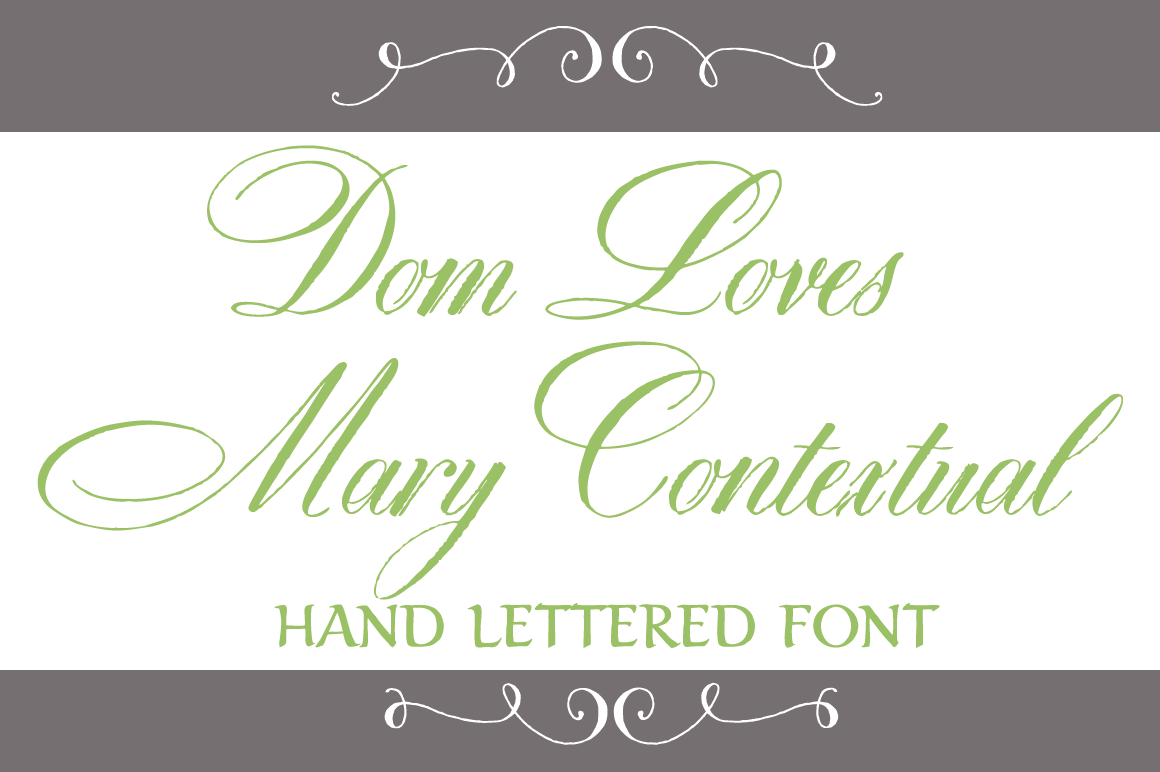
The Dom Loves Mary Contextual Calligraphy Font is a hand lettered classic calligraphy script. It's one of three styles available in this font family. If you look at the above graphic of the alphabet, you'll see what all of the letters look like.
The font also includes a set of flourishes and ornaments that are accessible in the glyph panel in OPEN TYPE CAPABLE programs like Illustrator and InDesign.
They are also represented in a graphic above. You can use them to embellish your project, and create frames and borders.
Dom Loves Mary is named in memory of my in-laws, Dominic and Mary Sementelli. Inspired by their 1952 wedding, I sought to create a classic, elegant script font that would serve their memory well. Dom and Mary were opposites who were truly “made for each other”. A snazzy dresser, Mary was feisty, loved to dance, sing, and be the life of the party. Dom was cool, calm and collected and was happy to shine the spotlight on the love of his life. They balanced each other out in a really great way. Debi decided to create a hand-lettered font with them in mind represented by two totally different lettering styles, SCRIPT and TEXT, that were, like Dom and Mary, “made for each other”.